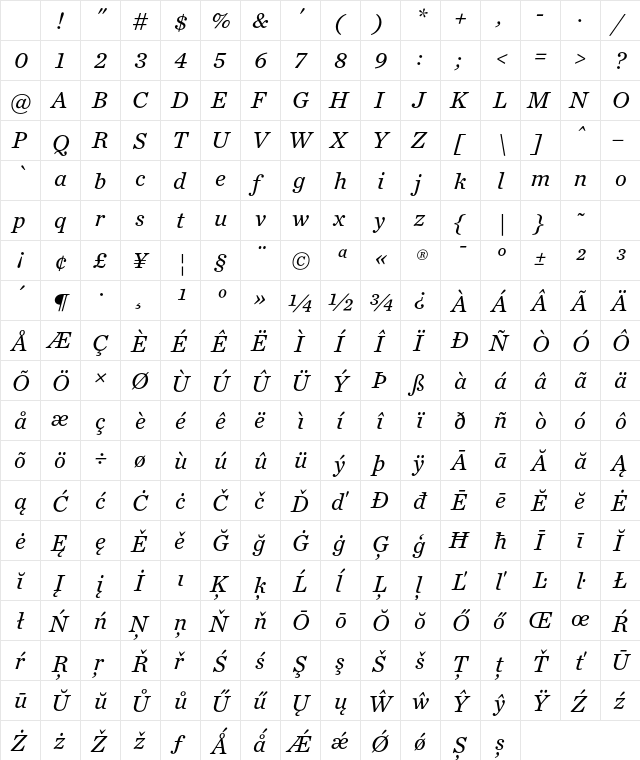
Complete Chronicle Text G2 Italic glyph index. Displaying only characters natively supported by Chronicle Text G2 Italic font.
Chronicle Text G2 is a composed and adaptable typeface that performs quietly and consistently across a wide range of design contexts. The slanted form adds forward momentum and visual energy.
Pro Tip: Use Chronicle Text G2 for emphasis, pull quotes, and subheadings where its slanted energy can add rhythm to the layout.